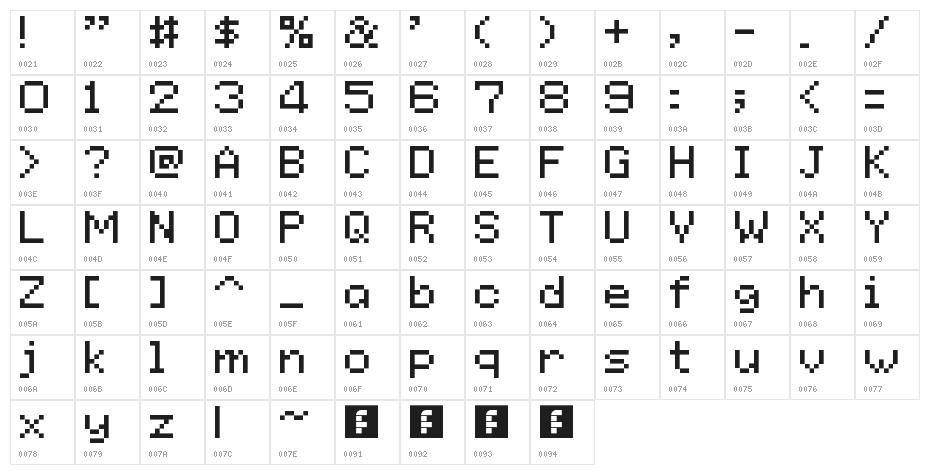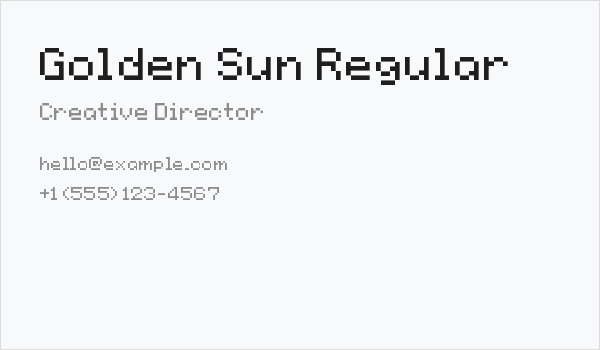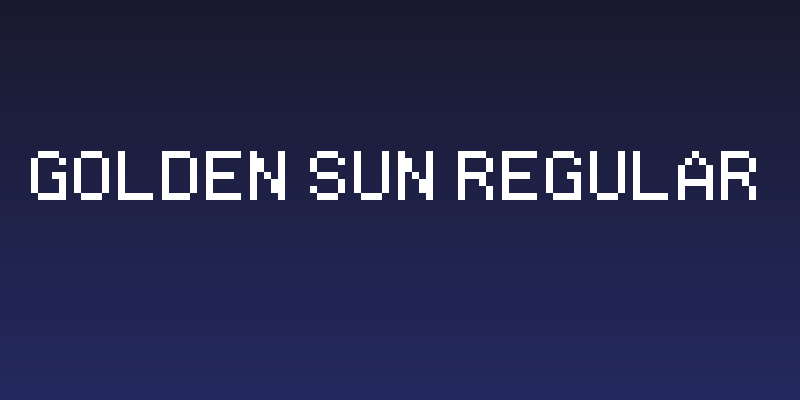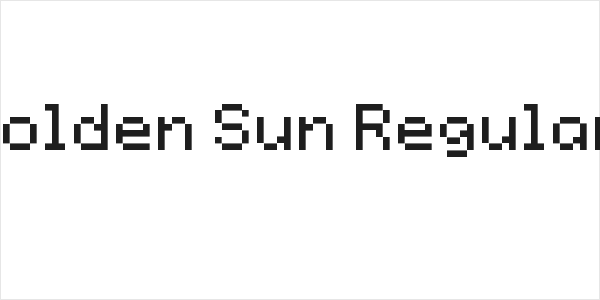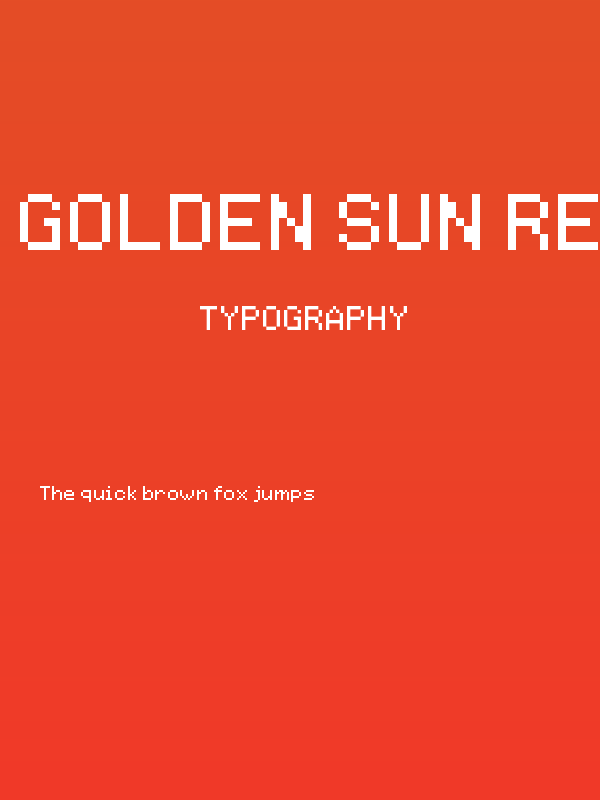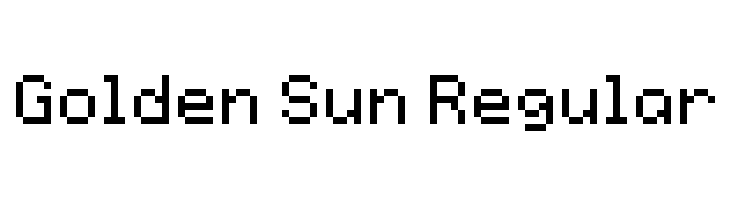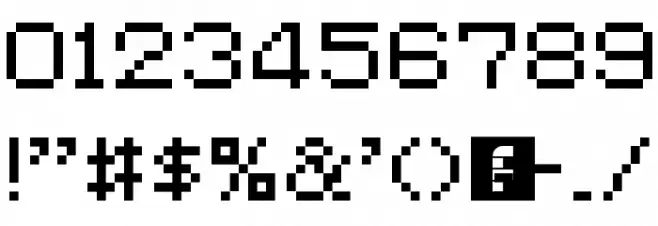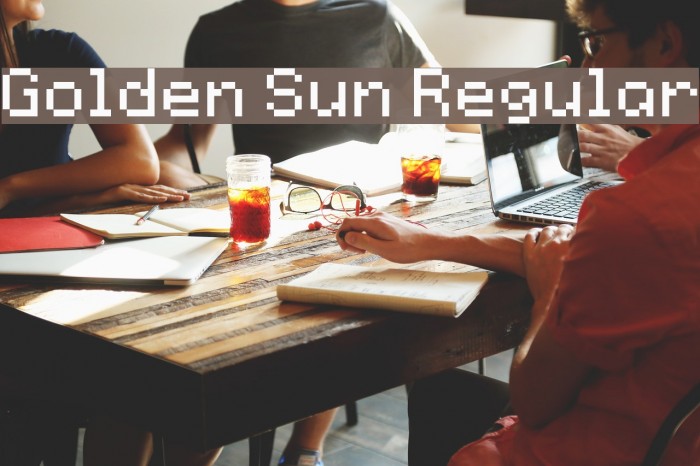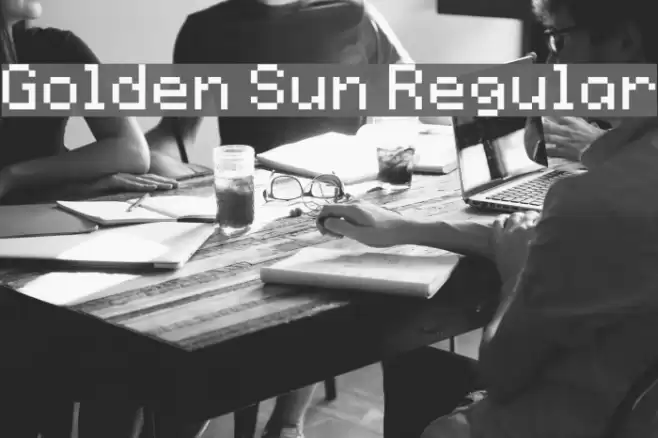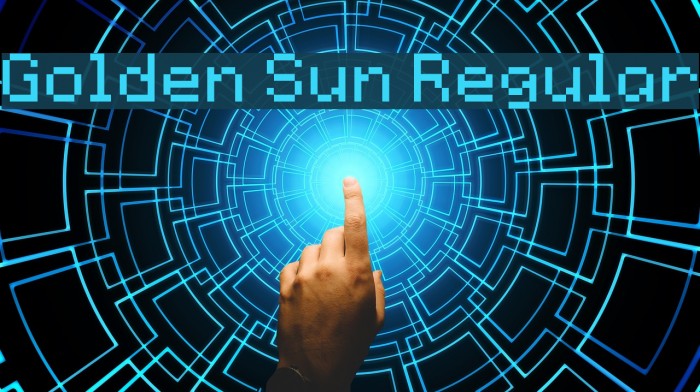
Golden Sun Regular Font
✎ Pixel
| Kategorien | Pixel |
| Gesamtstil | Retro, Digital |
| Anwendungsfall | Headlines, Logos, Digital displays |
| Vorgeschlagene Projekte | Ideal for retro video game designs, digital art projects, coding interfaces, and any creative work that requires a nostalgic digital aesthetic. |